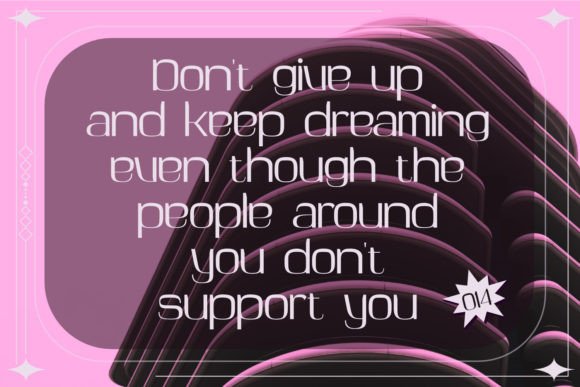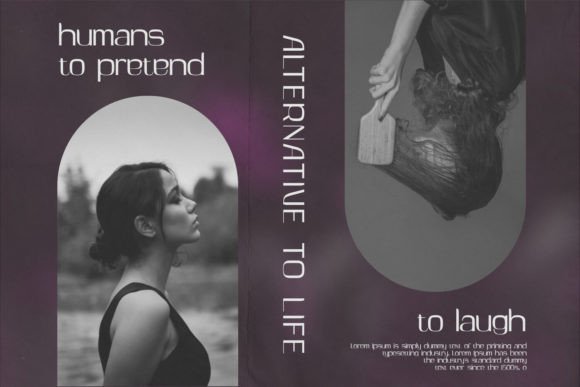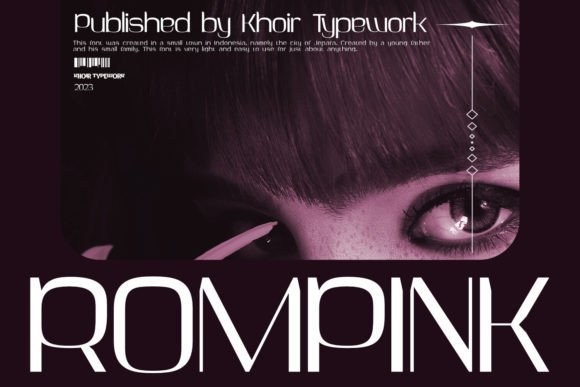
Introduction to Rompink Font
Rompink is a font inspired by futuristic design, has a unique shape inspired by robot design, and is combined with a retro style to make it look retro-futurism, both for modern cities and current digital industry trends.